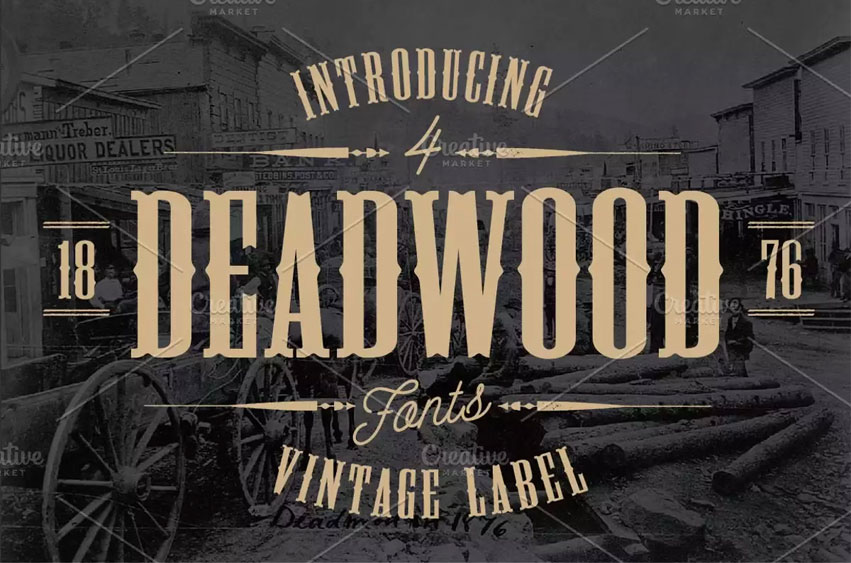
Deadwood Font
Deadwood Font Recreating the style of the hand-painted signs to decorate the windows of Deadwood’s businesses, this font family will bring a touch of the frontier to your designs. All four styles – Regular, Dust, Gravel and Sawtooth – include specific flaws and surface finishes, which give the impression of tiles from an older generation. These imperfections are just slightly different at different point sizes and make the text look more realistic and natural.
Regardless of whether you are creating retro logos, creating attention-grabbing posters, or simply wanting to add a touch of the Wild West to any project, Deadwood offers a truly distinctive typographic experience that will take your designs back to the Wild West.